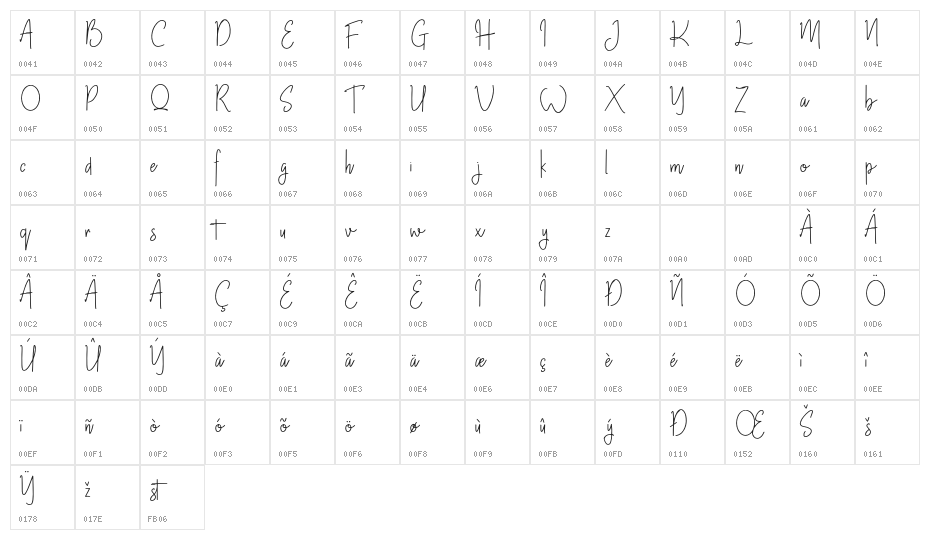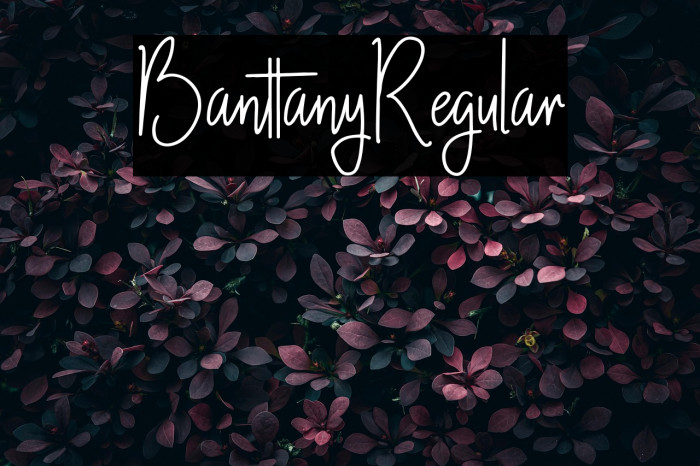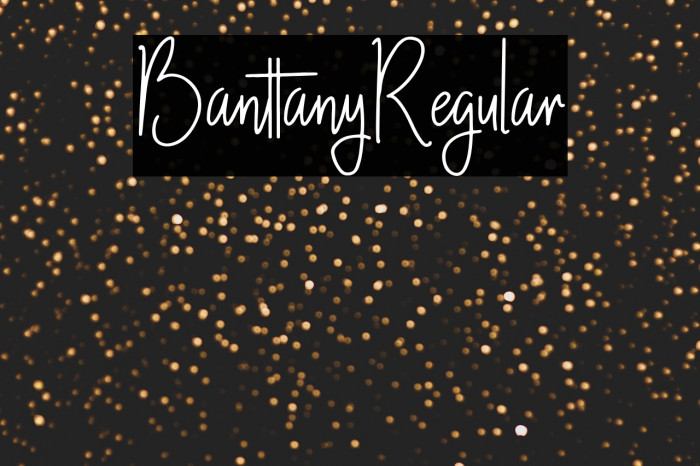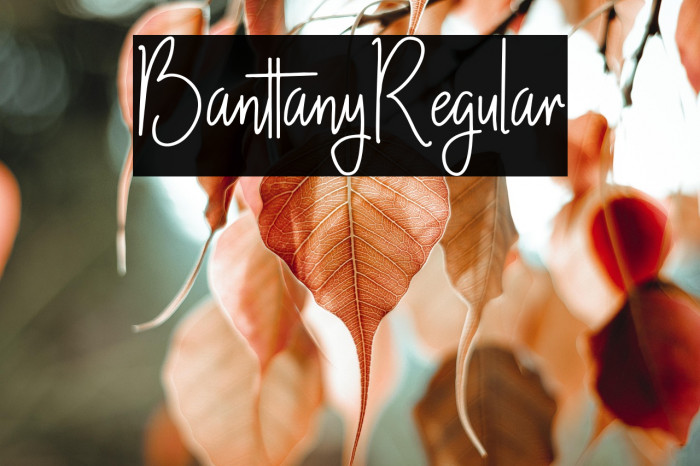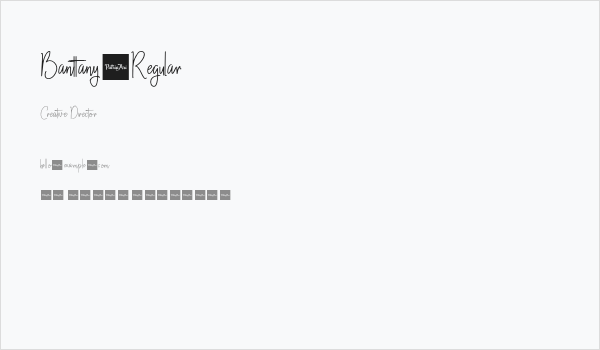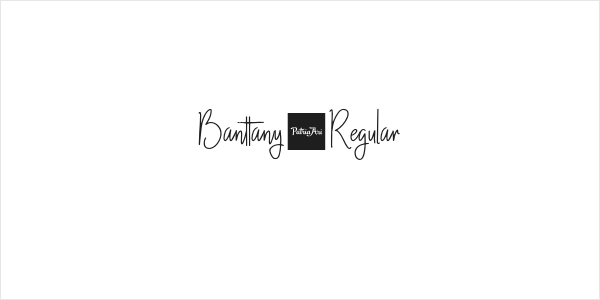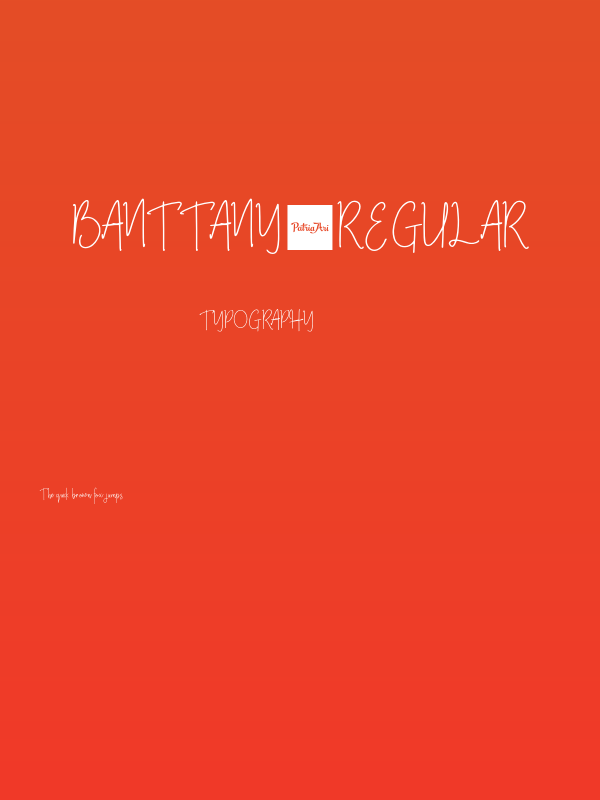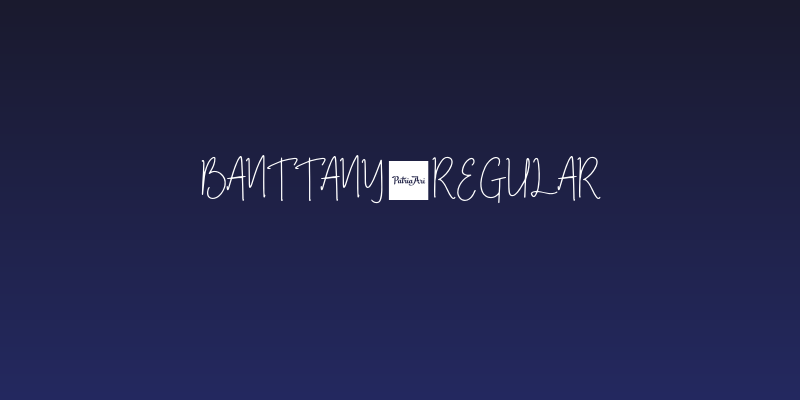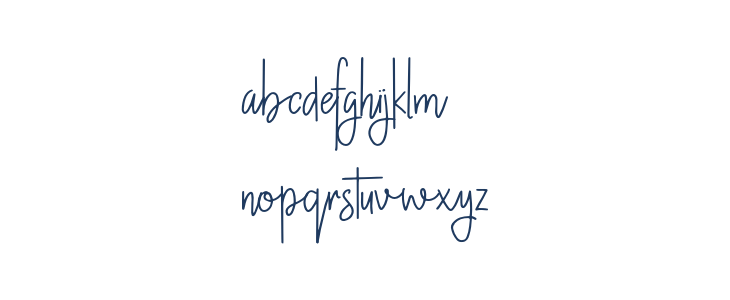
Banttany-Regular Font
Banttany-Regular Description
This font features a playful and casual handwritten style, characterized by its flowing and connected letterforms. The uppercase letters are tall and slightly narrow, with a consistent stroke width that gives a uniform appearance. The lowercase letters maintain a similar style, with some letters having distinctive loops and curves that add to the font's charm. The overall design is clean and legible, making it suitable for a variety of applications. The font's informal and friendly appearance makes it ideal for creative projects that require a personal touch.
| Proposed Projects | Greeting cards, invitations, personal branding, social media graphics, and casual event posters. |